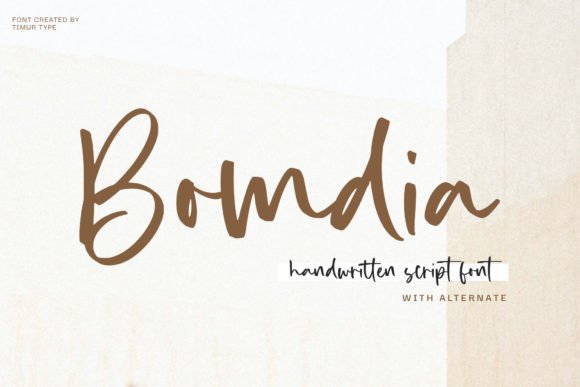
The Designer’s Delight: Unpacking the Bomdia Font
Ah, the thrill of the design hunt! I still remember the time I was working on a branding project for a trendy coffee shop. My client wanted a logo that exuded warmth, friendliness, and a dash of playfulness. As I scrolled through font after font, nothing seemed quite right. That was until I stumbled upon Bomdia – a fresh and stylish handwritten script font that instantly caught my eye. In this article, I’ll share my experience with Bomdia, its unique features, and how to make the most of this beautiful font.
My Honest Review of Bomdia
So, what makes Bomdia stand out from the crowd? Here are my top loves:
• ✨ Unique and beautiful touch: Every letter in Bomdia has a distinct character, making it perfect for creating eye-catching logos and branding materials.
• ✅ Fresh and stylish: Bomdia’s modern vibe is sure to elevate your designs and make them look contemporary.
• 💫 Versatile: Whether you’re designing a logo, quote, or social media graphic, Bomdia adapts seamlessly to different contexts.
Of course, no font is perfect, and Bomdia has a few minor quirks:
• ⚠️ Limited use in formal contexts: Bomdia’s playful nature makes it less suitable for formal or corporate designs.
• 🤔 Occasional kerning issues: As with any script font, you might need to adjust kerning to achieve optimal results.
The Story Behind Bomdia
Bomdia was designed with the intention of creating a fresh and stylish handwritten script font that would bring a touch of personality to designs. The designer aimed to craft a font that was both modern and elegant, with a unique character that would make it stand out from more traditional fonts.
Author Timur type
What makes Bomdia unique? Bomdia’s unique touch lies in its beautiful, hand-crafted lettering, making it perfect for creating eye-catching logos and branding materials.
Is Bomdia suitable for body text? While Bomdia is stunning, it’s best used for headlines, titles, or short paragraphs. Its playful nature makes it less suitable for extended body text.